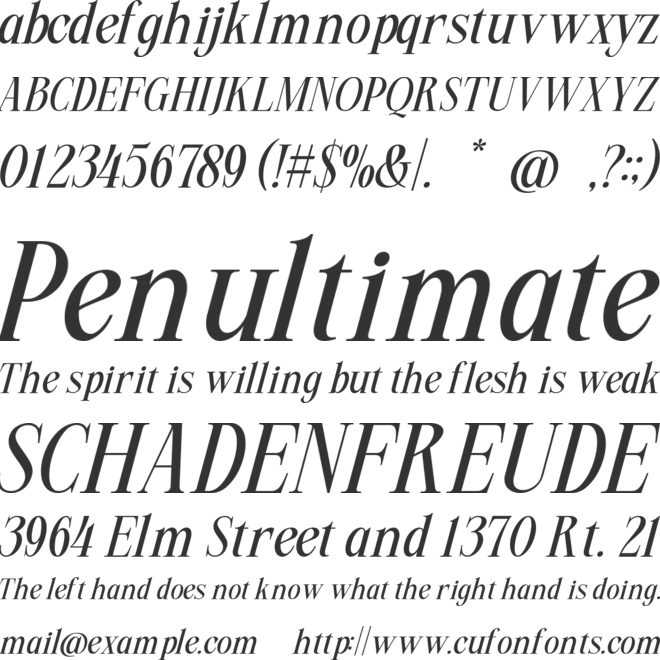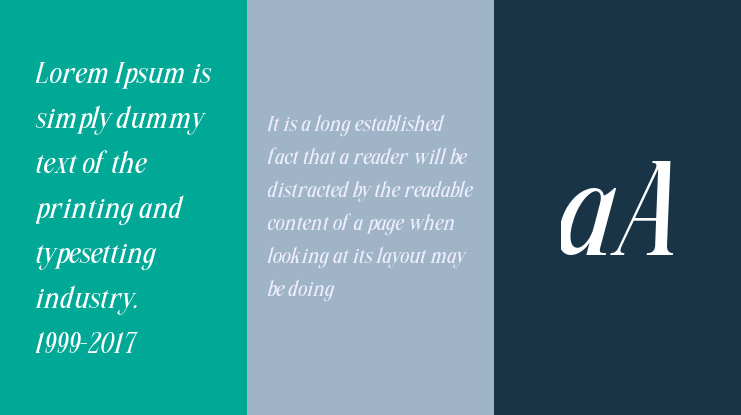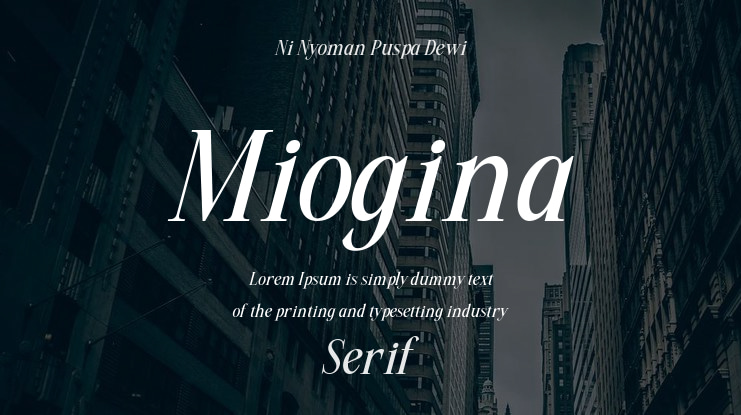
Miogina Font
Miogina Typeface: The Quintessence of Modern Serif Elegance with Swash Artistry
Prepare to redefine your design aesthetic with Miogina Typeface, an exquisitely crafted modern serif font that masterfully intertwines contemporary sophistication with the flowing grace of elegant swashes. Designed with meticulous attention to detail by Alit Design Studio, Miogina is not merely a typeface; it's a versatile artistic tool poised to infuse your projects with an unparalleled sense of luxury, romance, and timeless beauty.